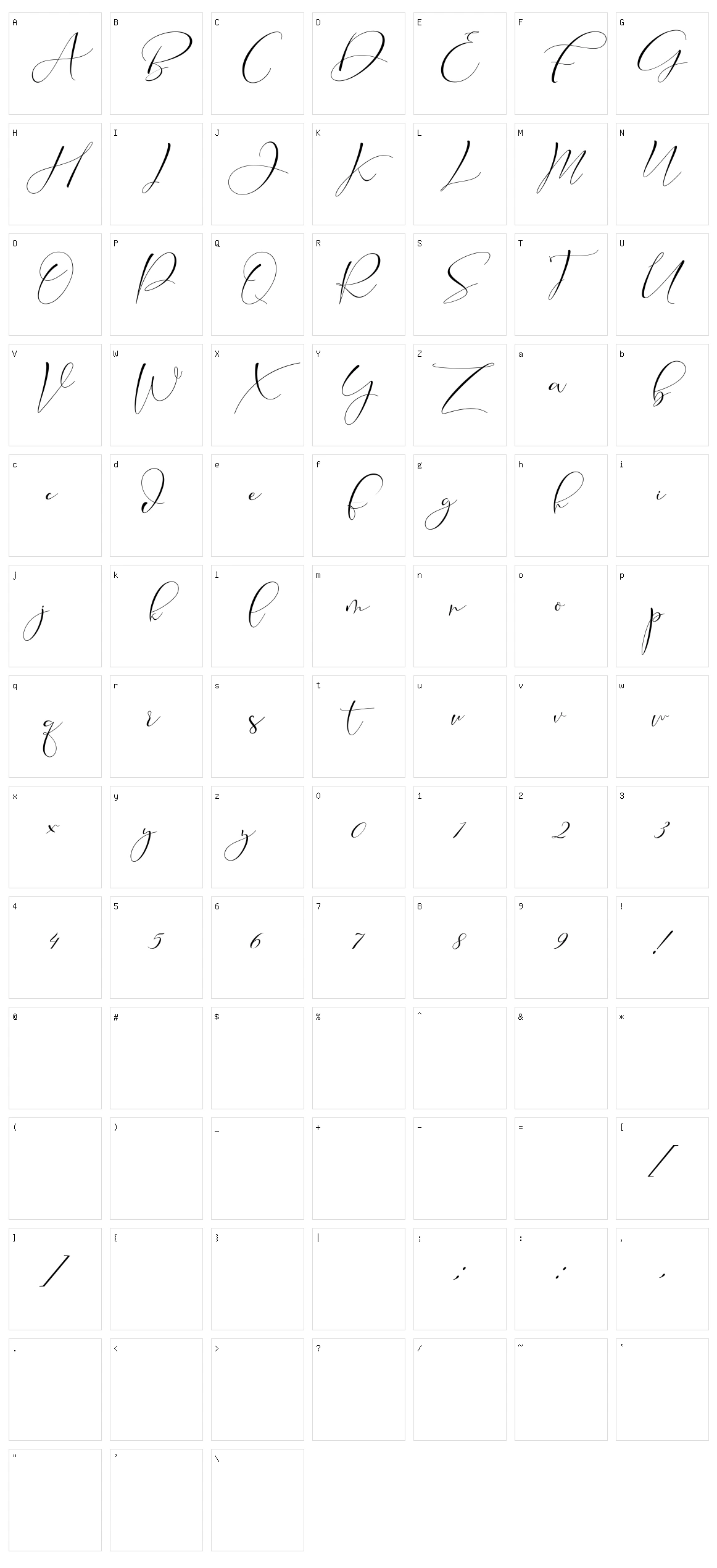
The free font Cameliya Stark is carefully designed by Moly Mol, showcasing a thoughtful balance of creativity and usability and falls under the Script font style. When you download the ZIP file, it contains only 22.96 KB of font files, making it lightweight and quick to download. Please review the license details below to understand permitted usage and distribution rights. If license information is not available, we recommend using this font for personal projects only or contacting the author directly for commercial usage permissions.